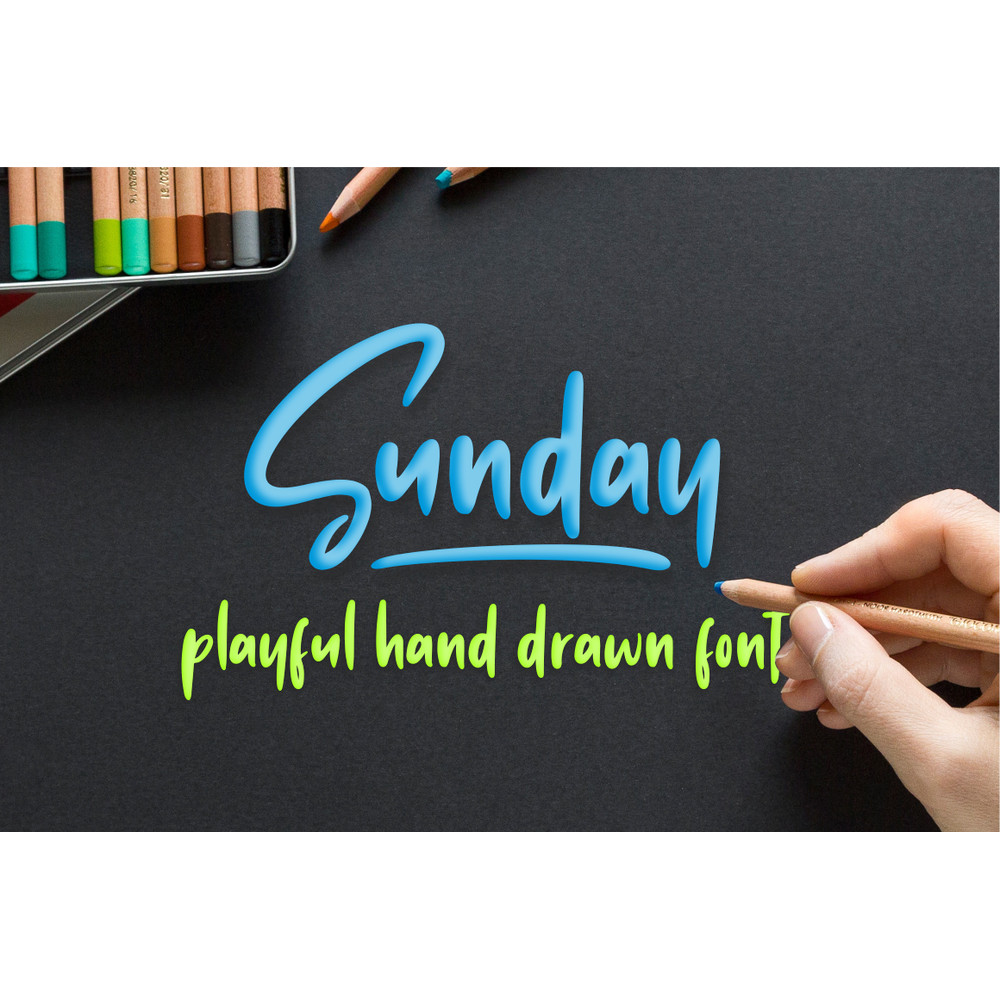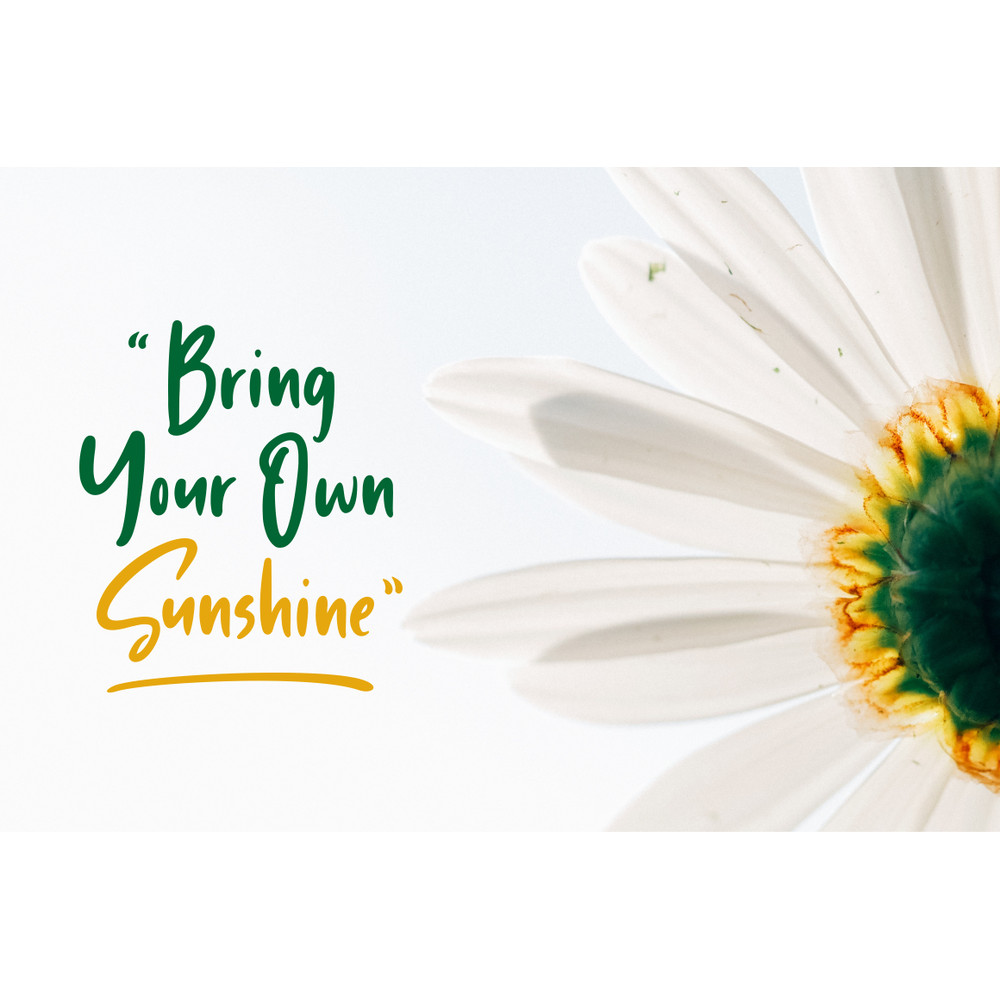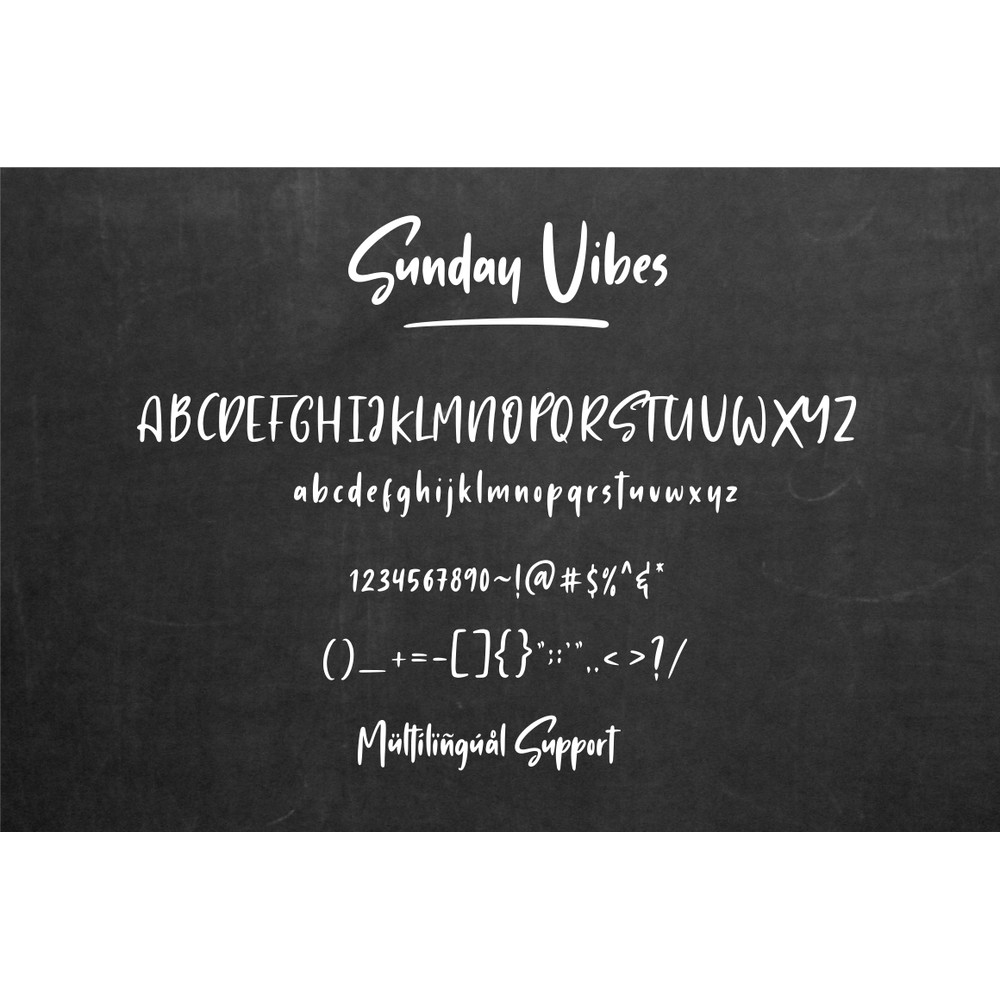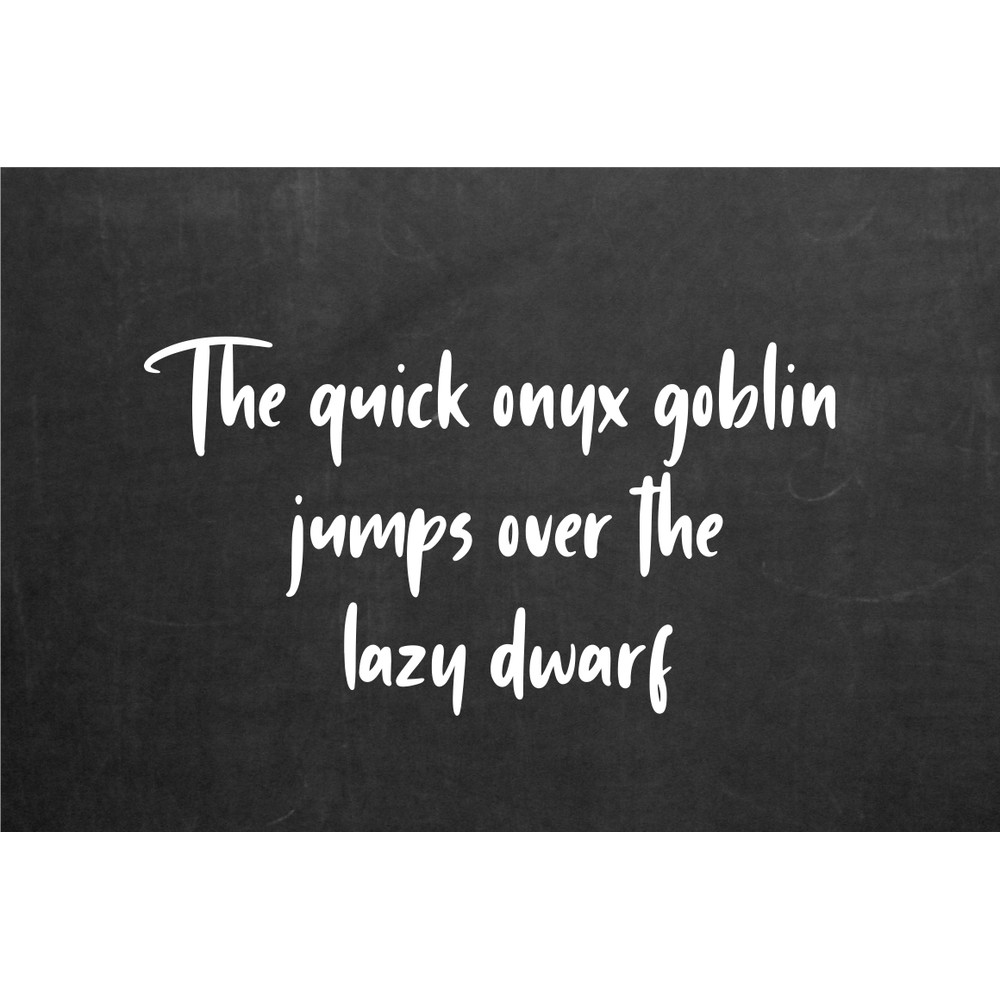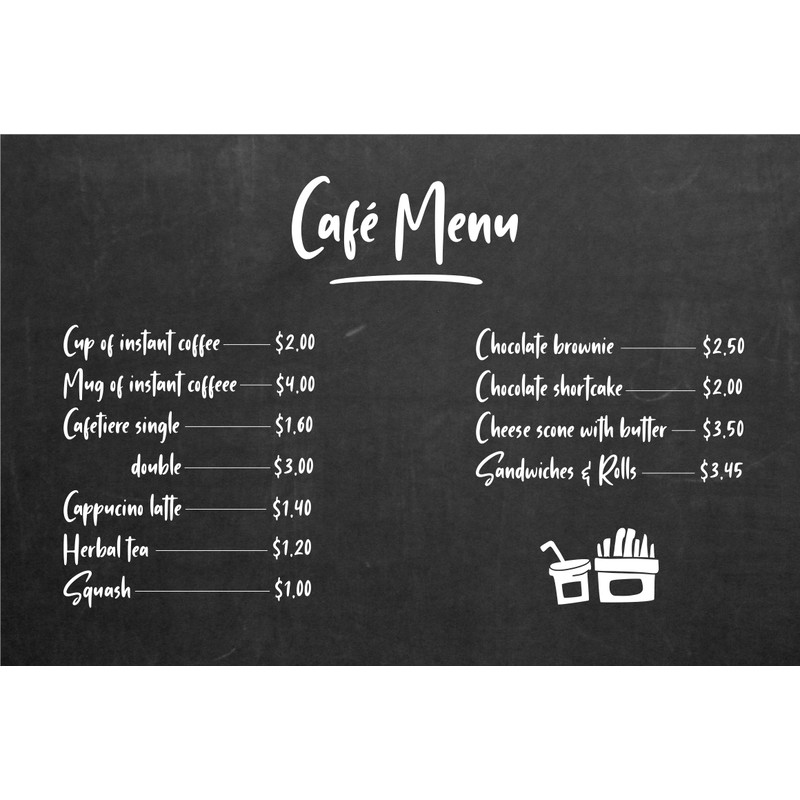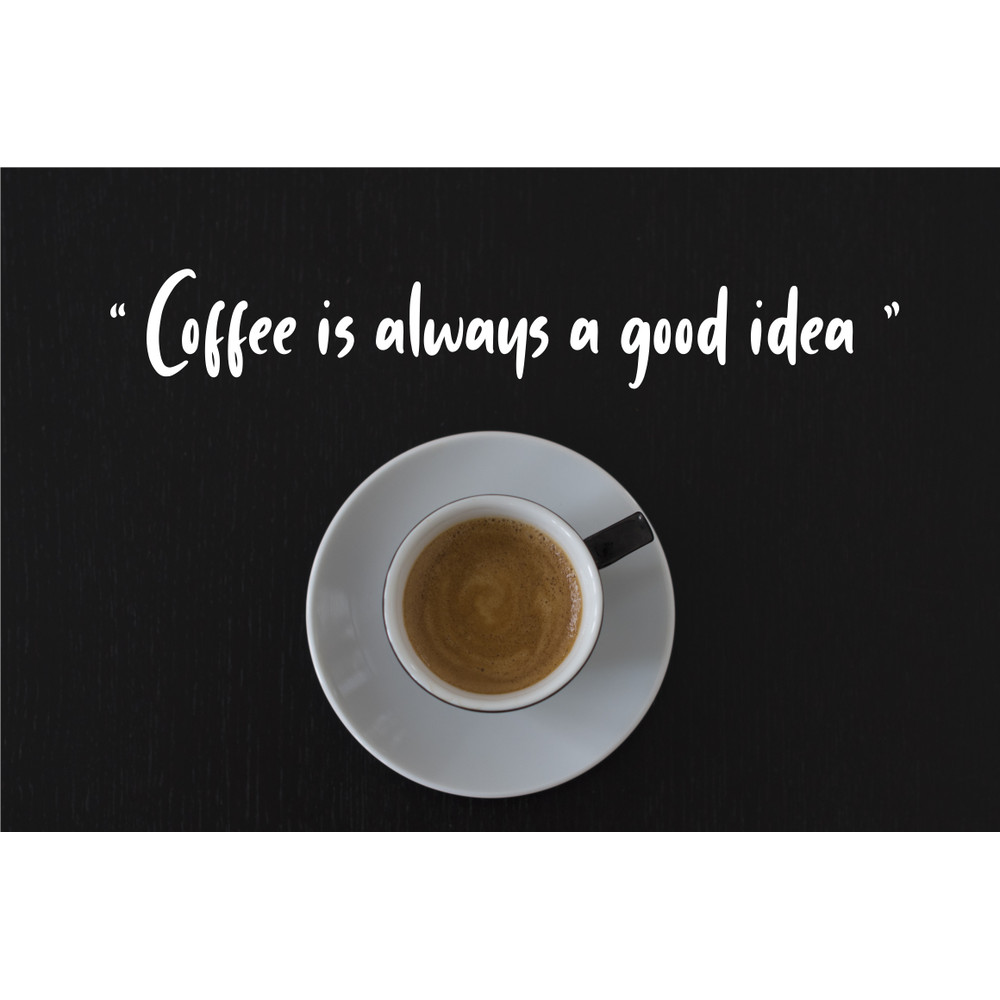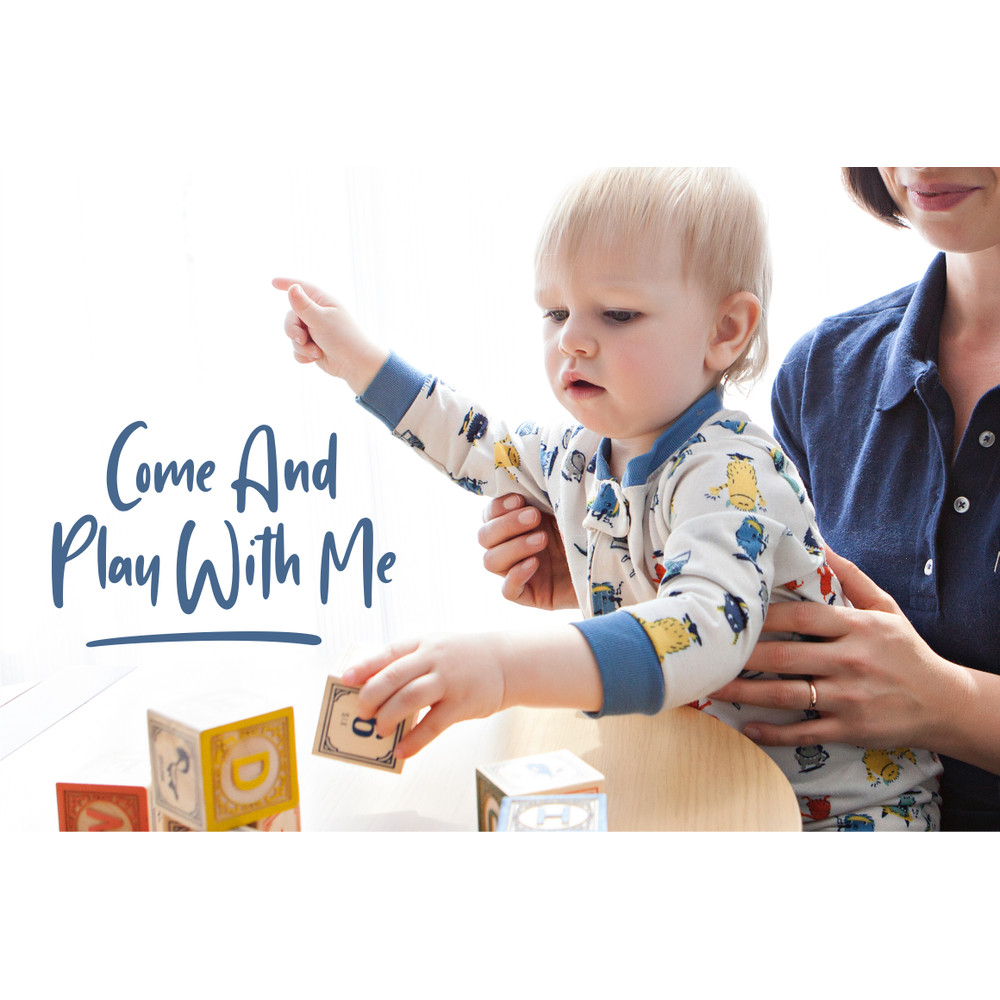
Introducing Saturday Vibes – a new modern & fresh handlettering font,make this font looks natural, modern, and perfect for any awesome projects.
Saturday Vibes is perfect for many different project such as logos & branding, invitation, stationery, wedding designs, social media posts, advertisements, product packaging, product designs, label, photography, watermark, special events or anything.
– Include Multilingual support